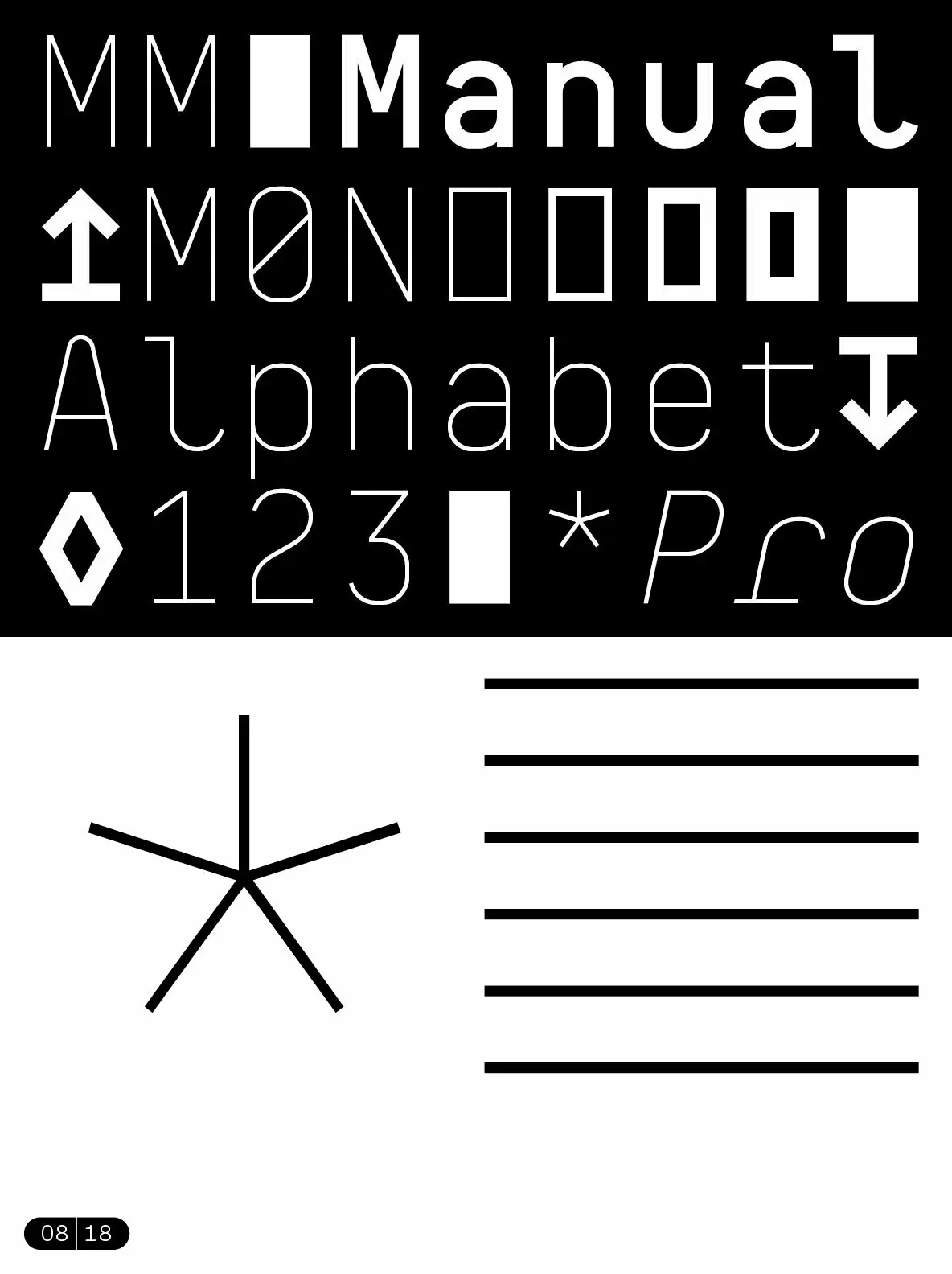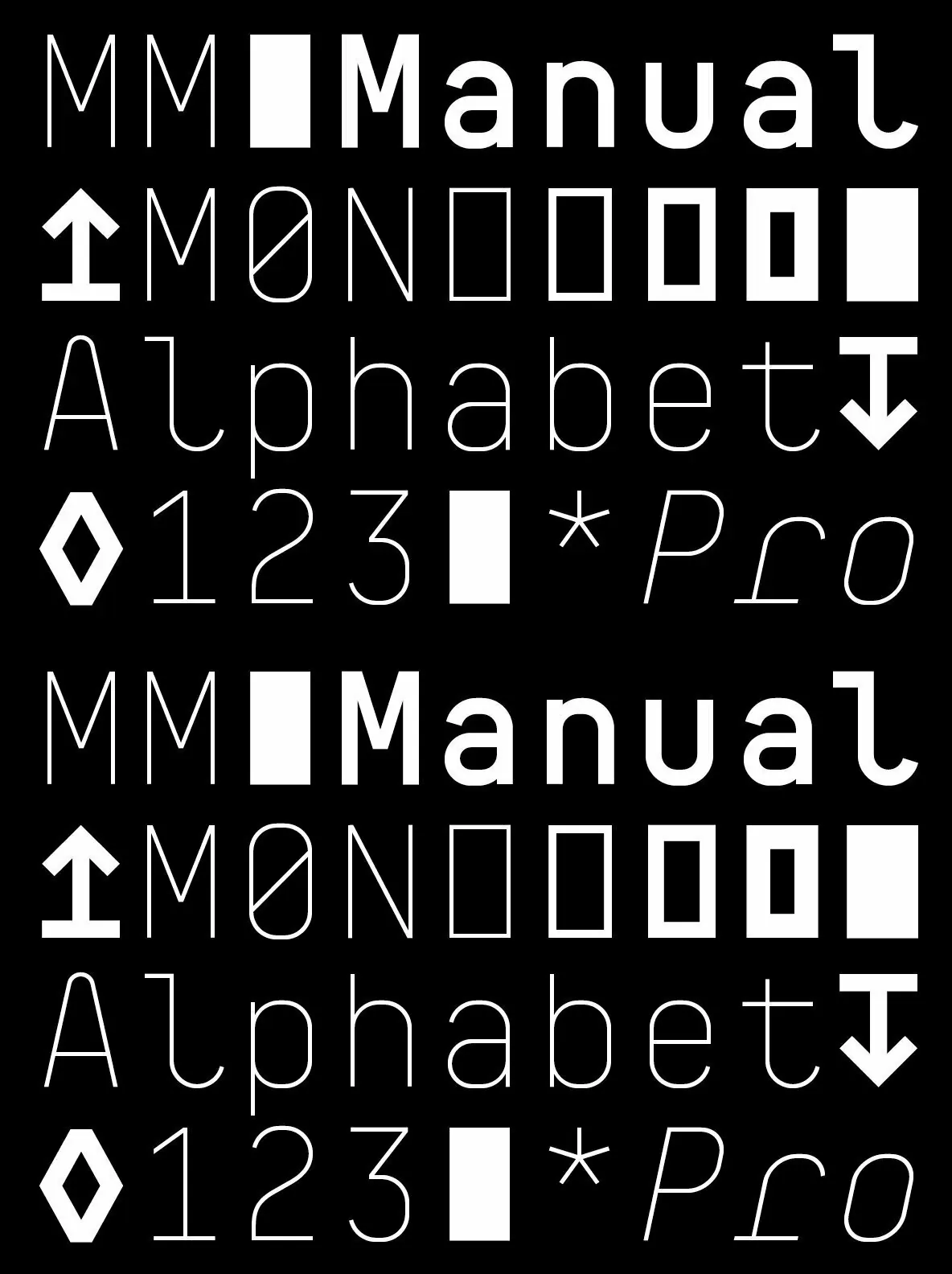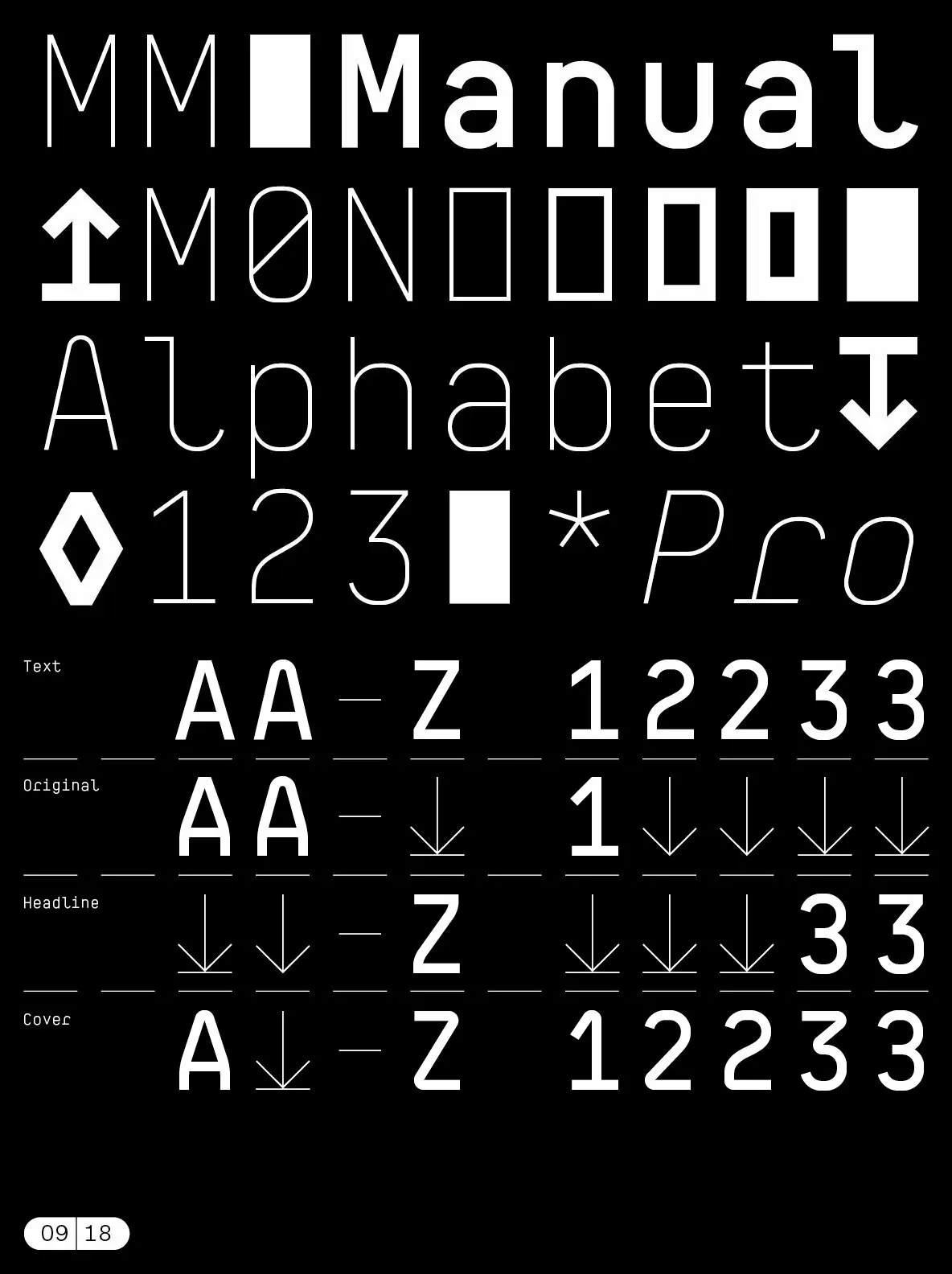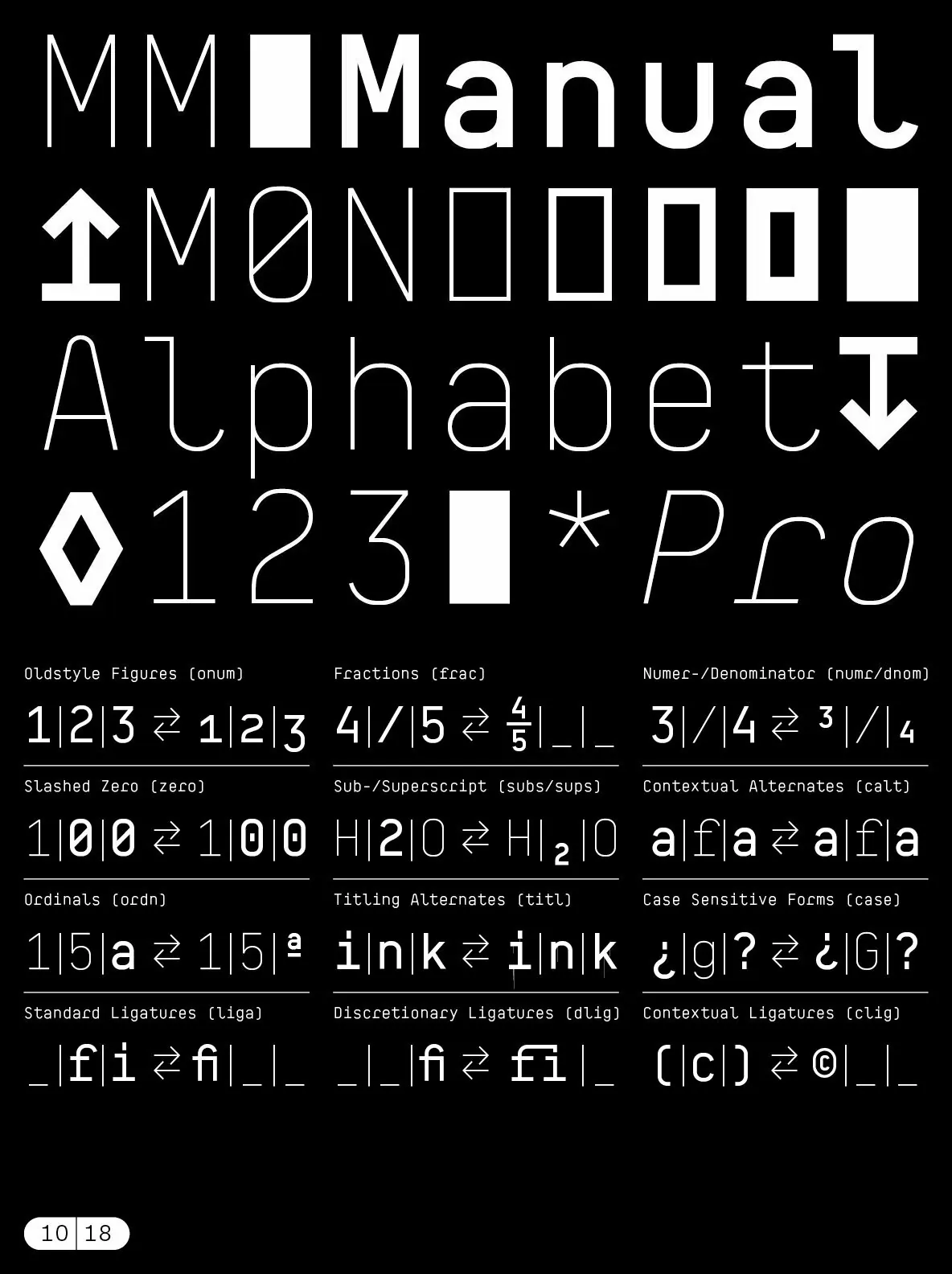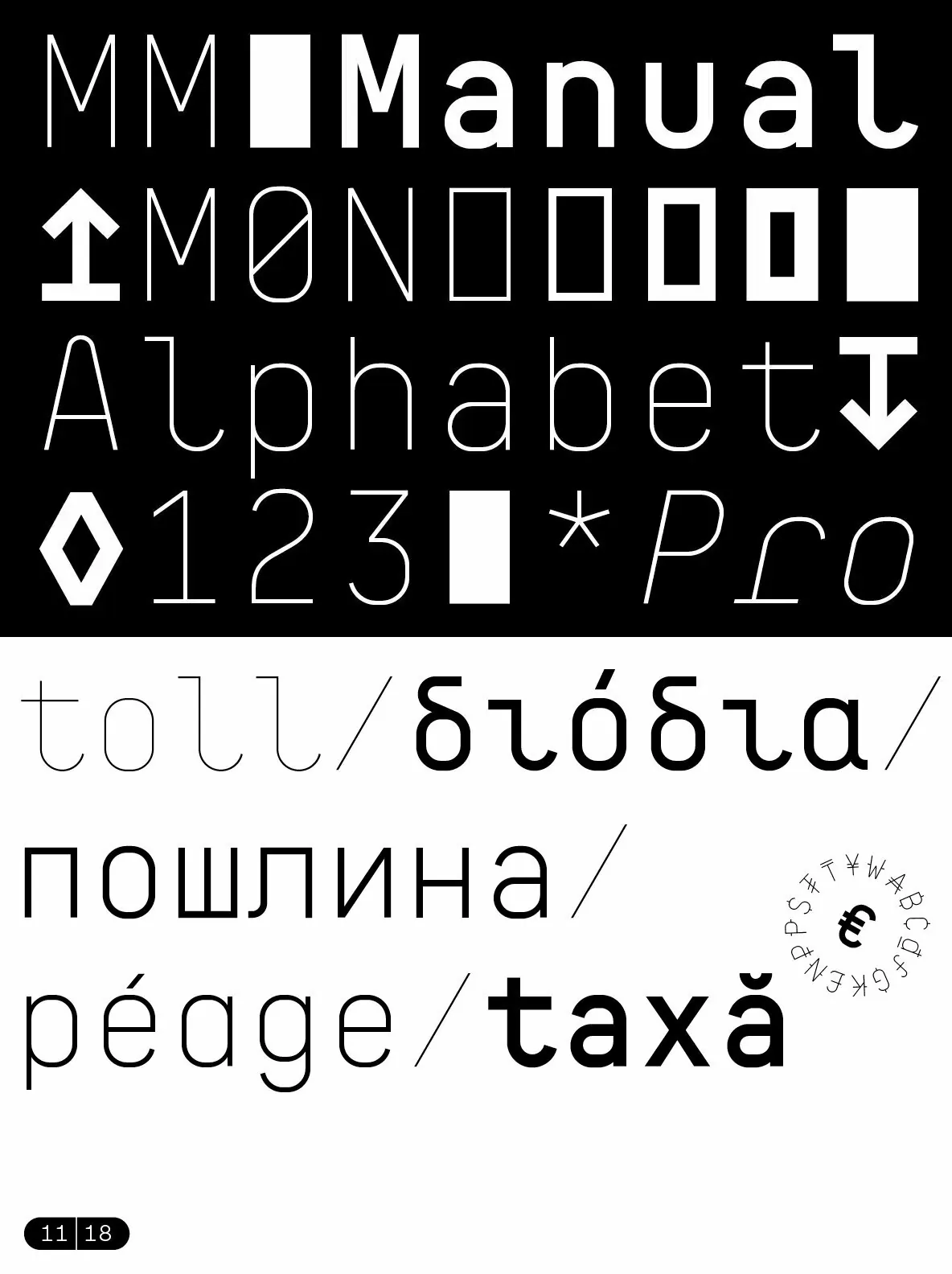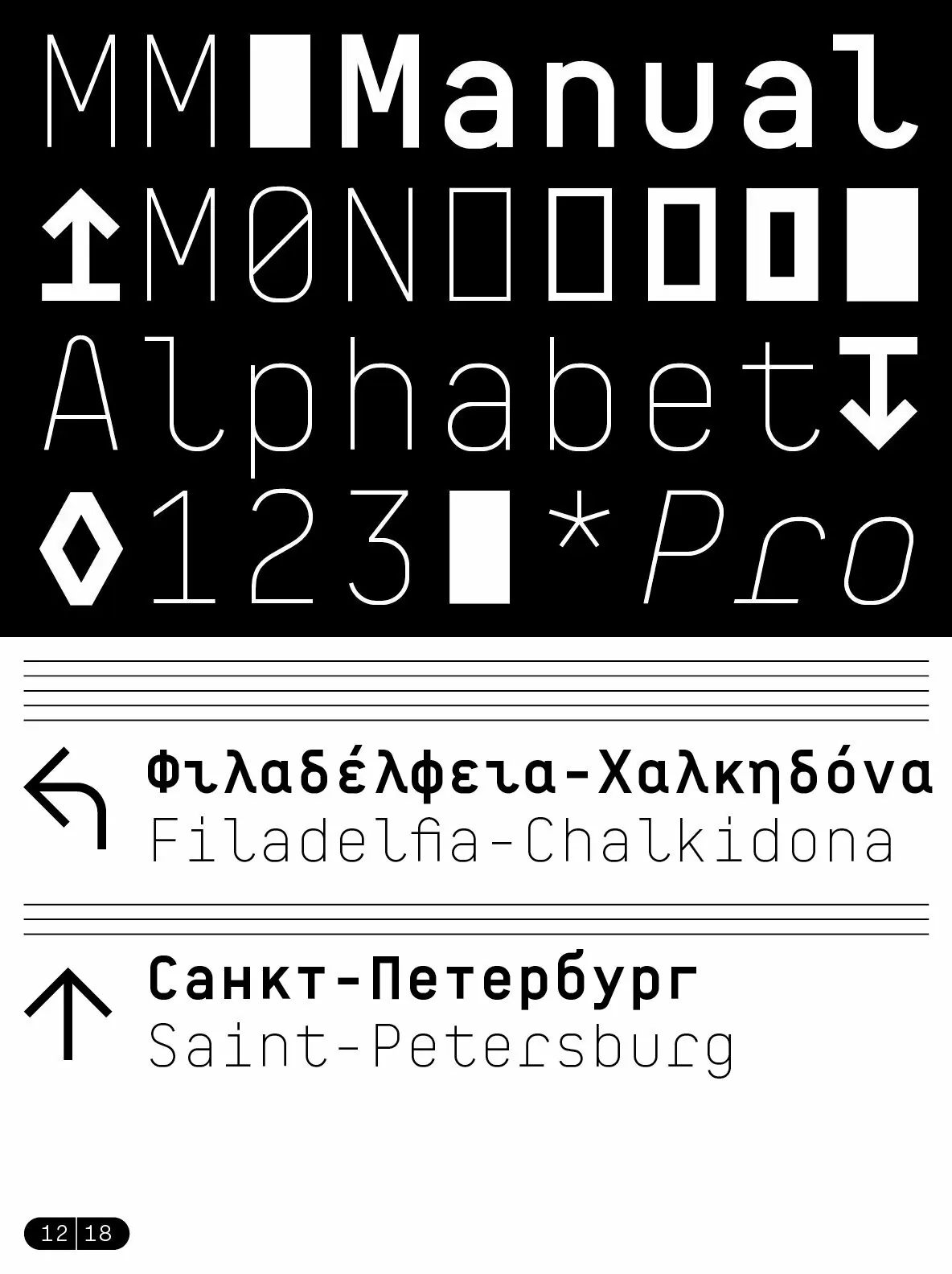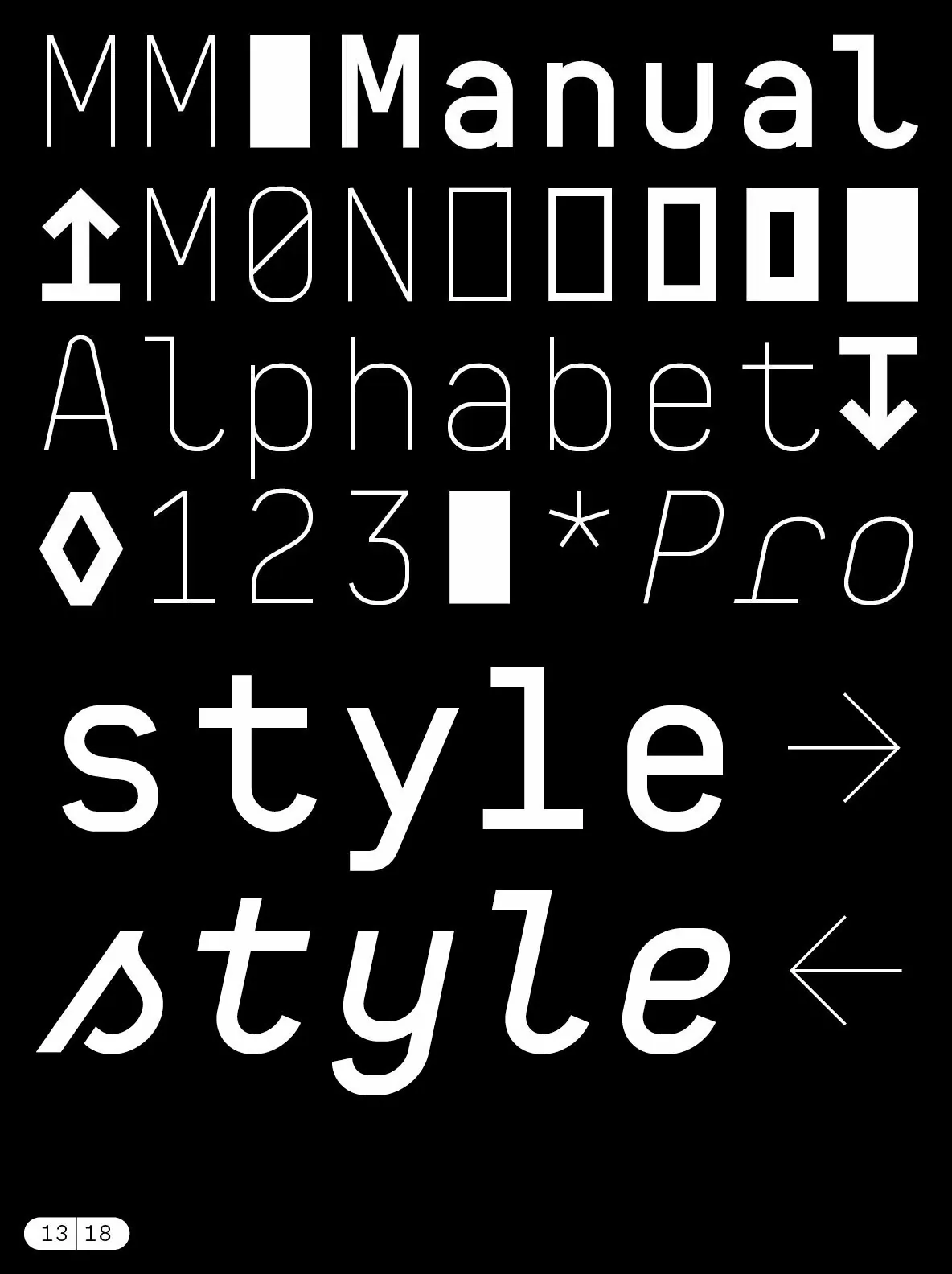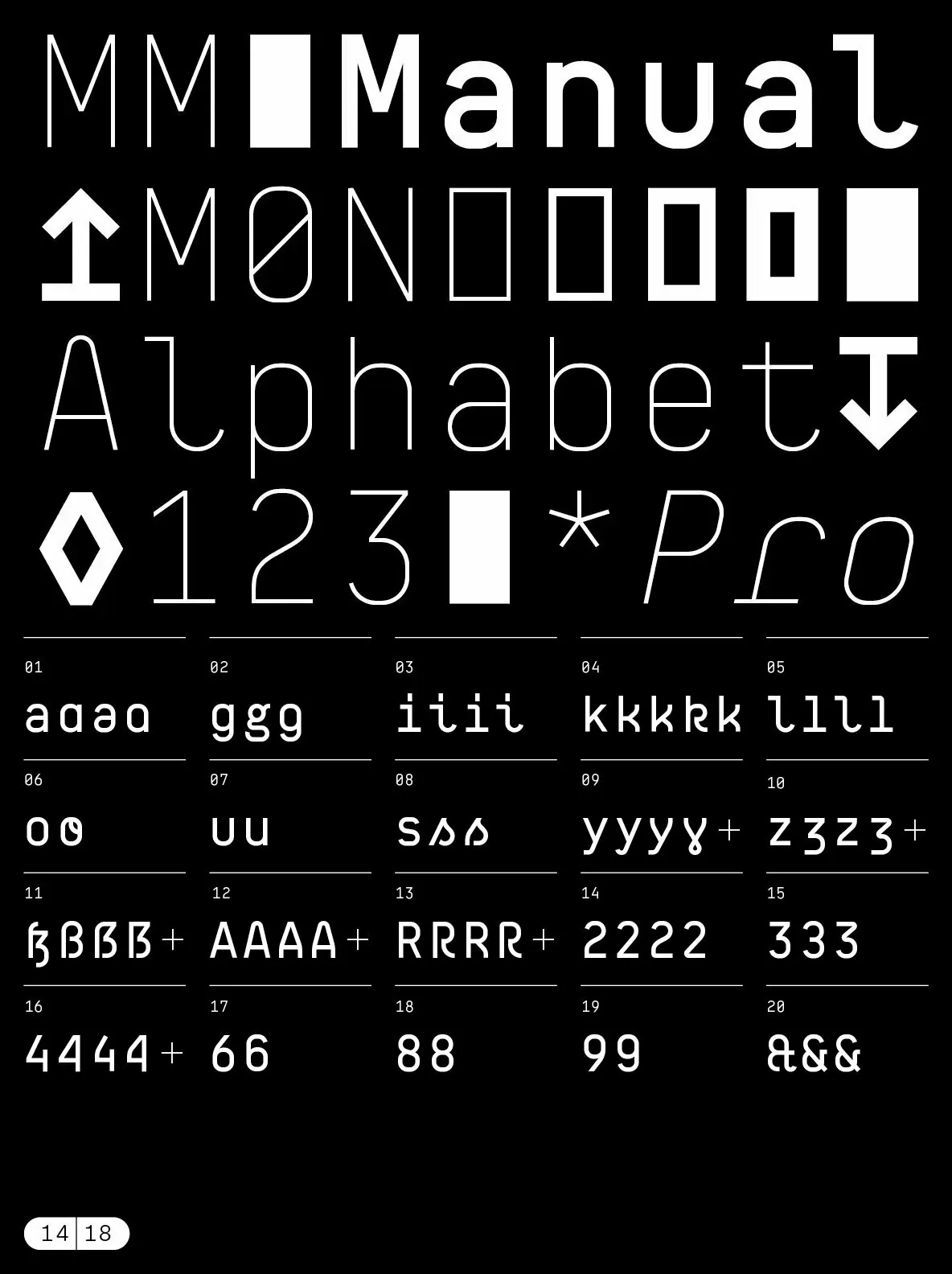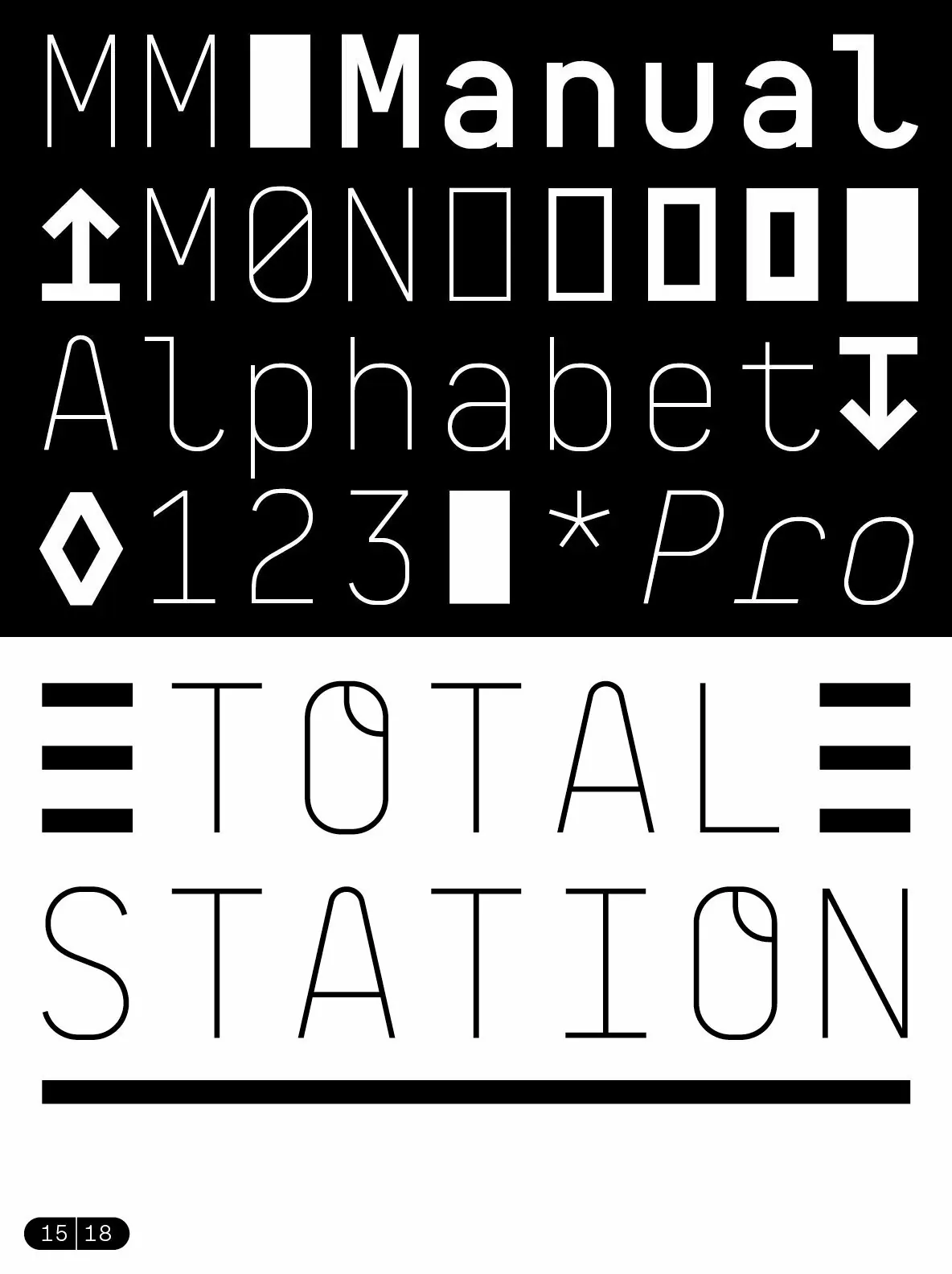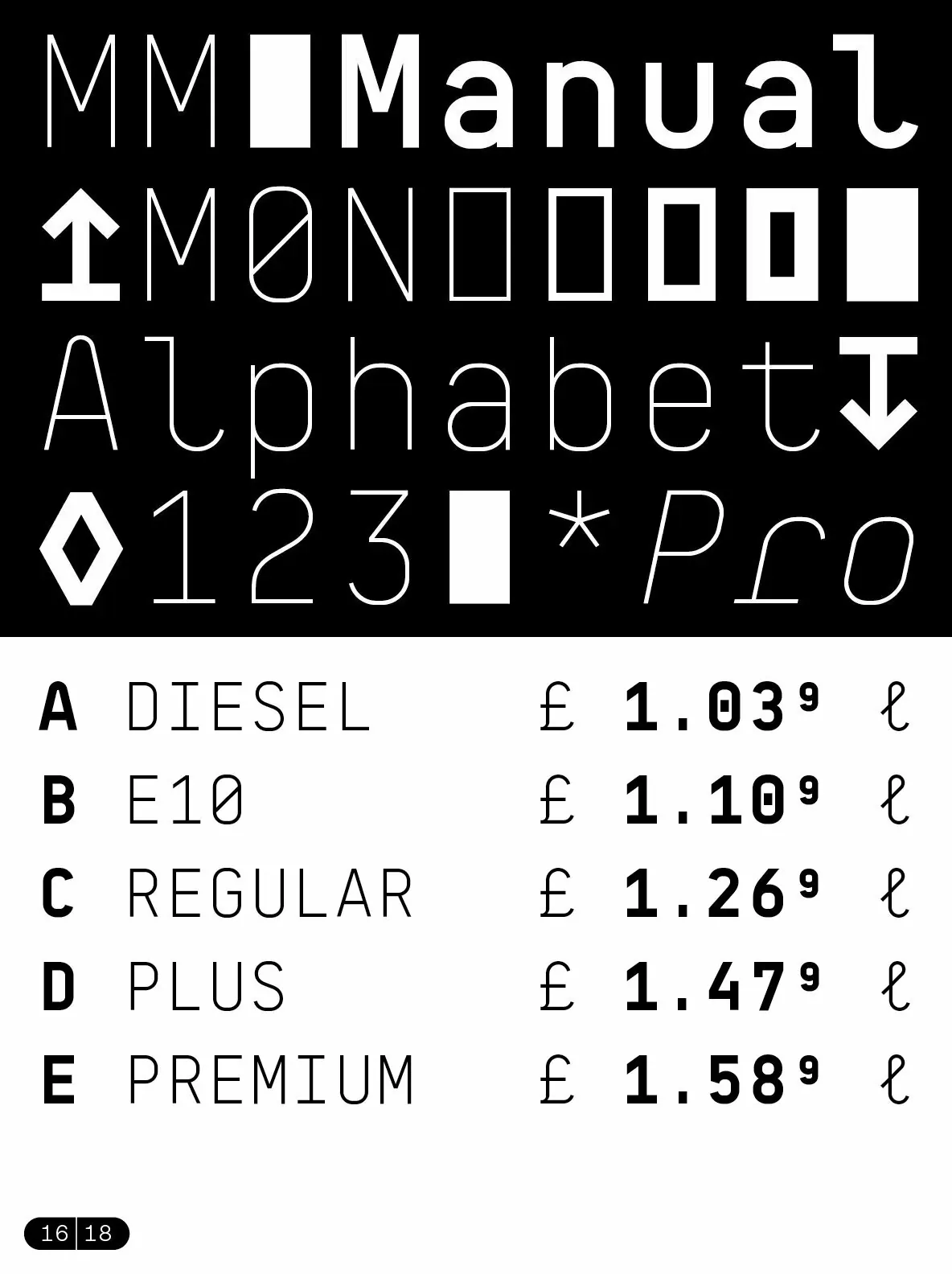
BB Manual Mono™ Pro: Typeface Emphasizing Craftsmanship and Precision
BB Manual Mono™ Pro reflects the meticulous nature of painters’ work, embodying craftsmanship, precision, and professionalism through its design. The font’s distinct characteristics underline the ongoing process of creation, offering a visual representation of the tools and techniques behind artistic work.
Features:
Flow:
Highlights the visible work process.
Alignment:
Contextual monoline for balanced structure.
Accuracy:
Individual modular components ensuring precision.
Variants:
Five distinct styles: TX, IT, ST, HL, CR.
OpenType Features:
Forty advanced typographic features and styles.
Styles:
Sixty variations to suit diverse design needs.
Stylistic Sets:
One hundred sets, twenty per variant.
Language Support:
Covers 122 languages across Latin, Greek, and Cyrillic scripts.
Glyphs:
Extensive character set with 85,860 glyphs total, 1,431 per style.
This typeface offers a nuanced approach to monospace typography, making it suitable for projects where precision and a handcrafted feel are paramount.